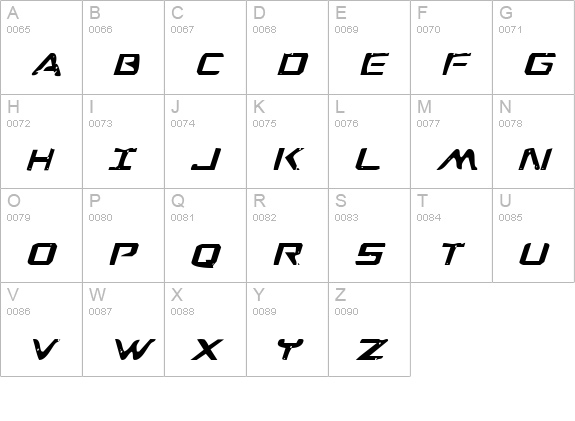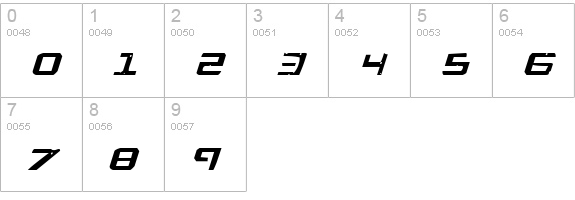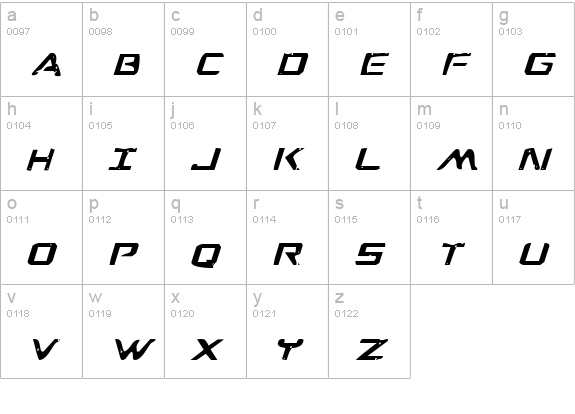
War Eagle Italic Font Details
War Eagle Italic is a distinctive, italic variant in the War typeface family \xE2\x80\x94 well suited to design and typography projects.
War Eagle Italic font is a bold and dynamic typeface that exudes strength and elegance. With its sleek and slanted design, this font is perfect for making a statement in your designs. Whether you are creating a poster, logo, or any other project that requires a touch of sophistication, War Eagle Italic font will surely make an impact. What's even better is that this stunning font is available for free download at FontsMarket.com. You can easily access this high-quality font and start using it in your projects right away. Don't miss out on this fantastic opportunity to enhance your designs with the striking War Eagle Italic font. Download it now and let your creativity soar!